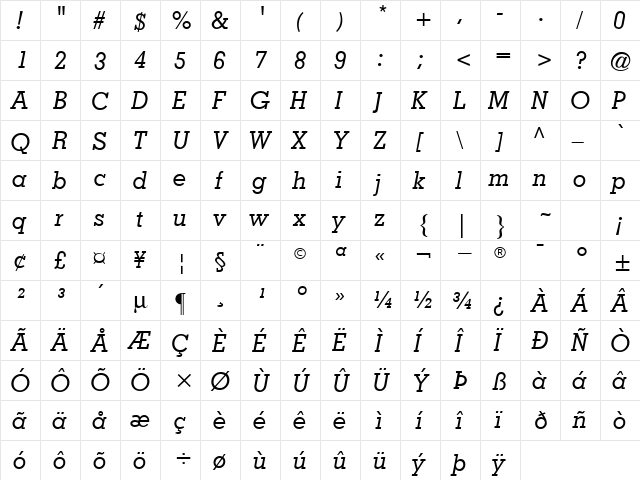
Nashville Medium Italic Font Preview
Nashville Medium Italic
Design Context for Nashville Medium Typeface
Nashville Medium is a composed and adaptable typeface that performs quietly and consistently across a wide range of design contexts. The slanted form adds forward momentum and visual energy.
Pro Tip: Use Nashville Medium for emphasis, pull quotes, and subheadings where its slanted energy can add rhythm to the layout.